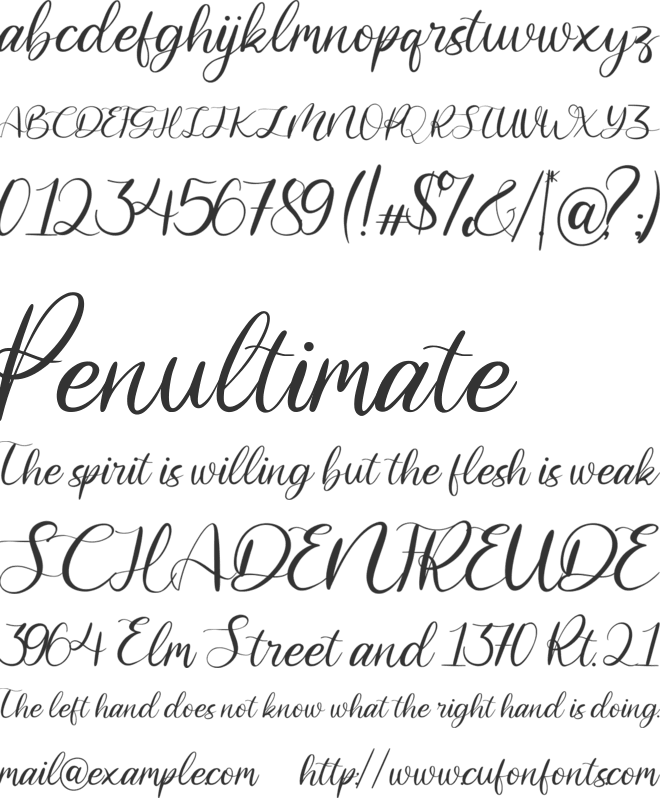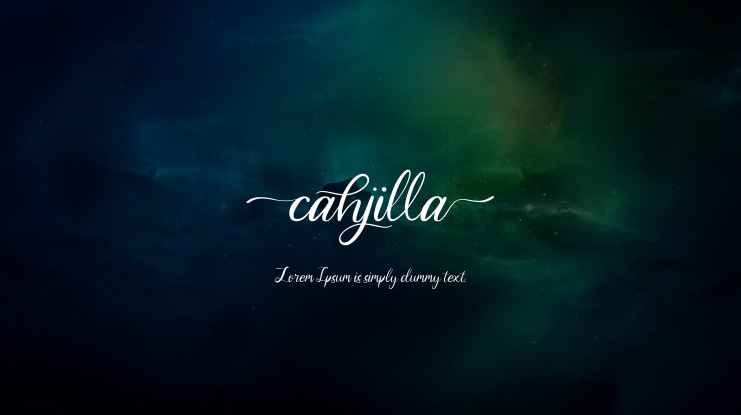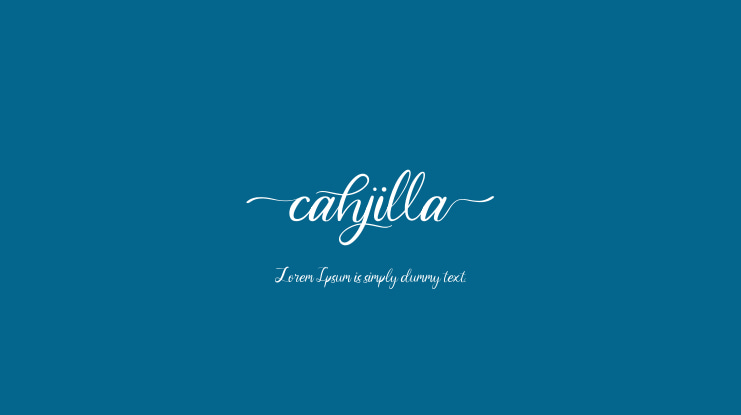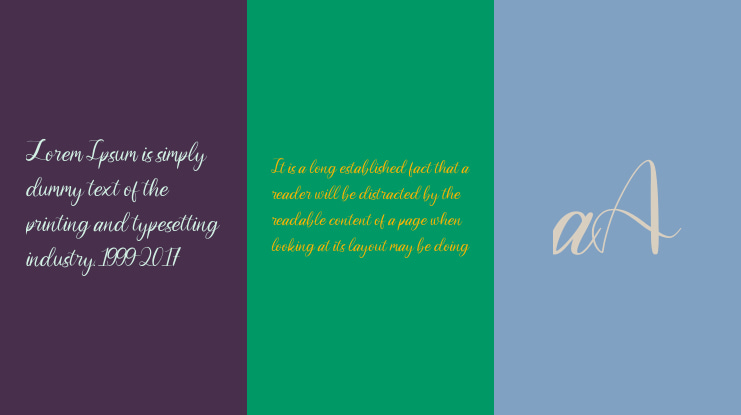
cahjilla Font
Introducing cahjilla is a Modern Script Calligraphy Font.
cahjilla can be used for wide ranges of application, such as wedding design, branding project, logo, poster, name card, invitations, social media posts, and others.
Feature : Ligature, Alternates and Swash.